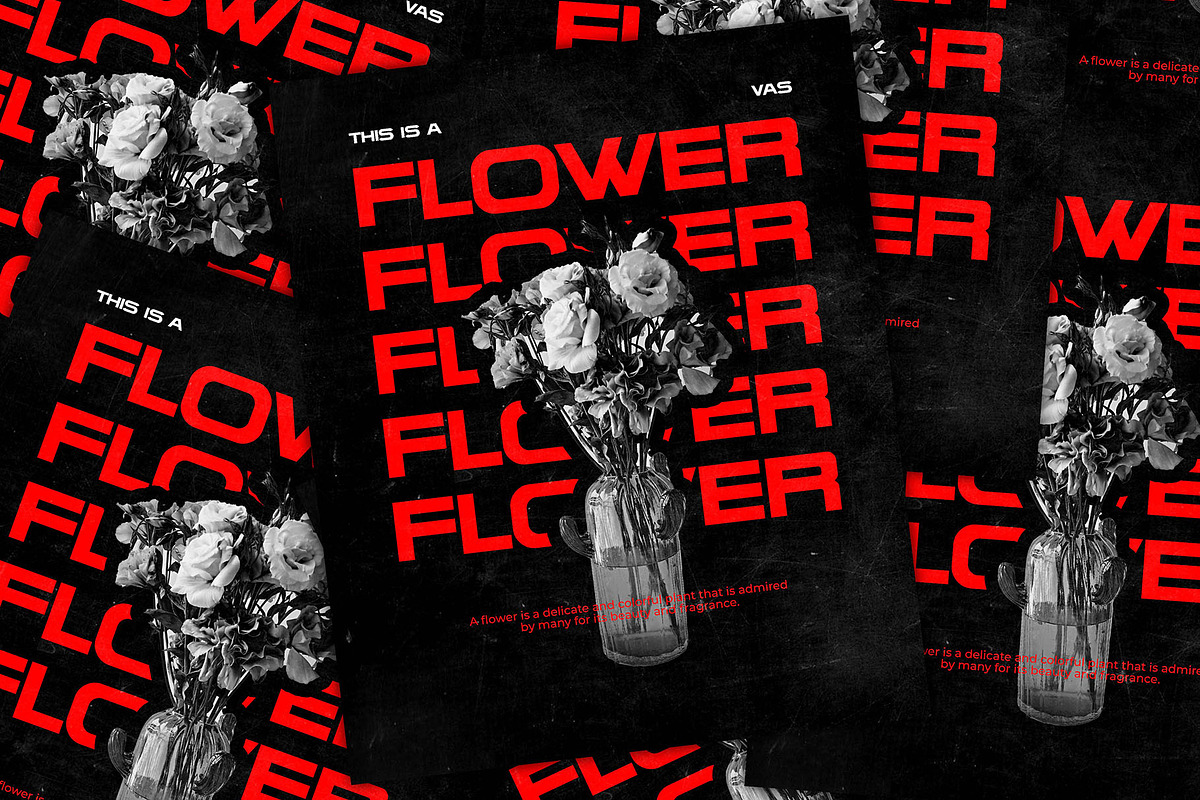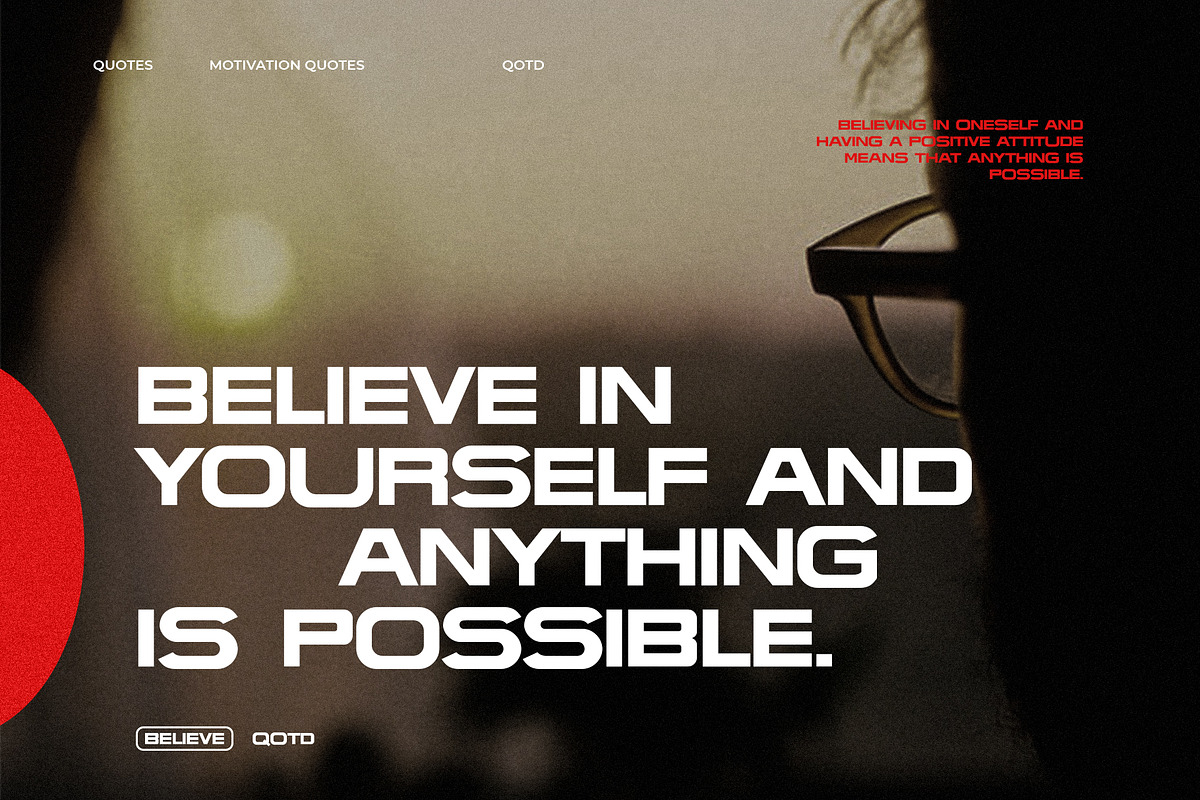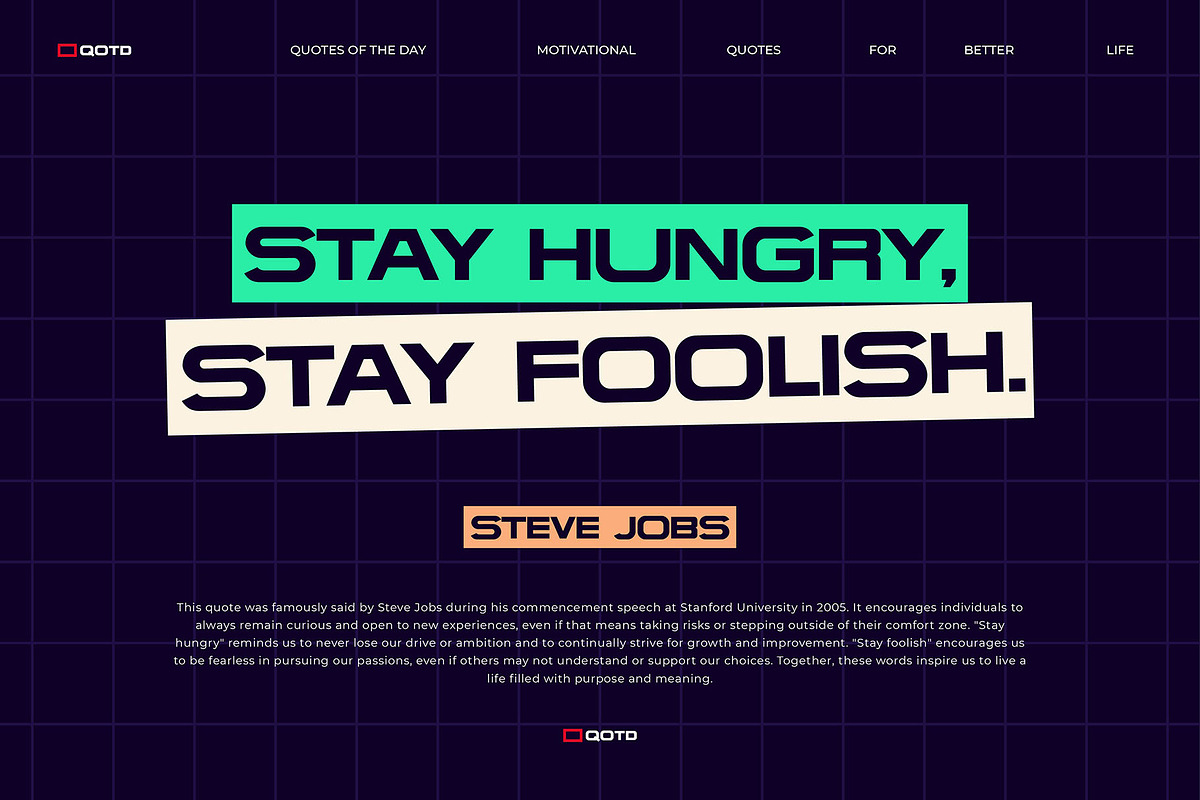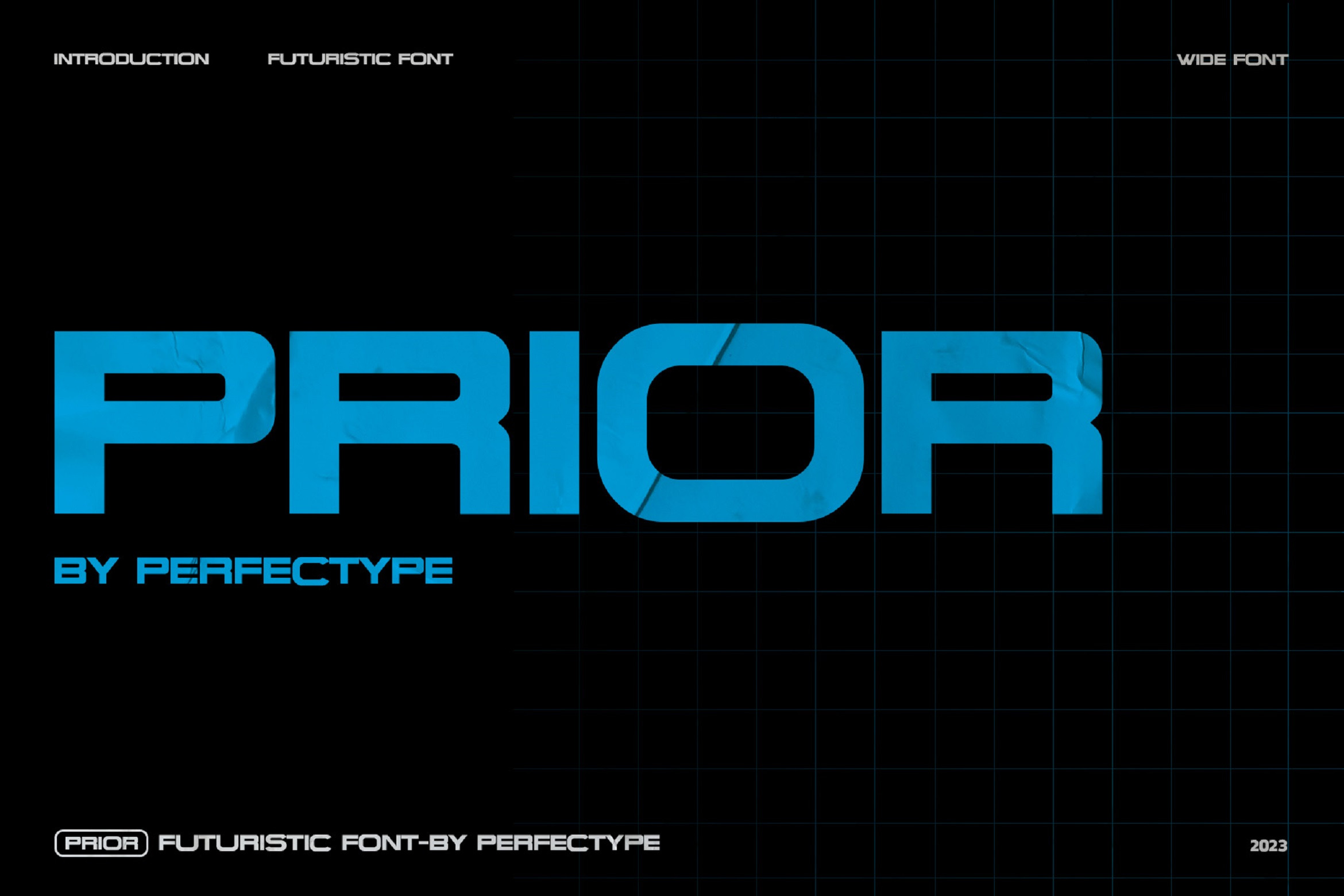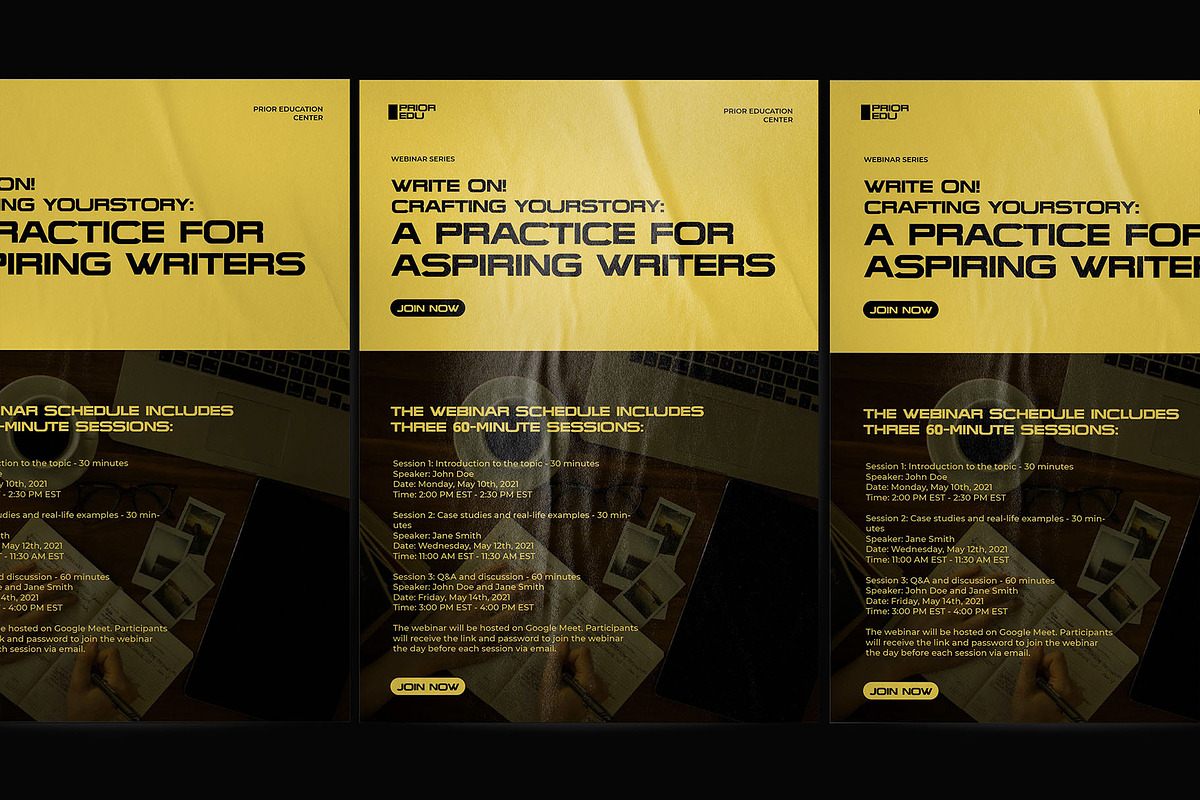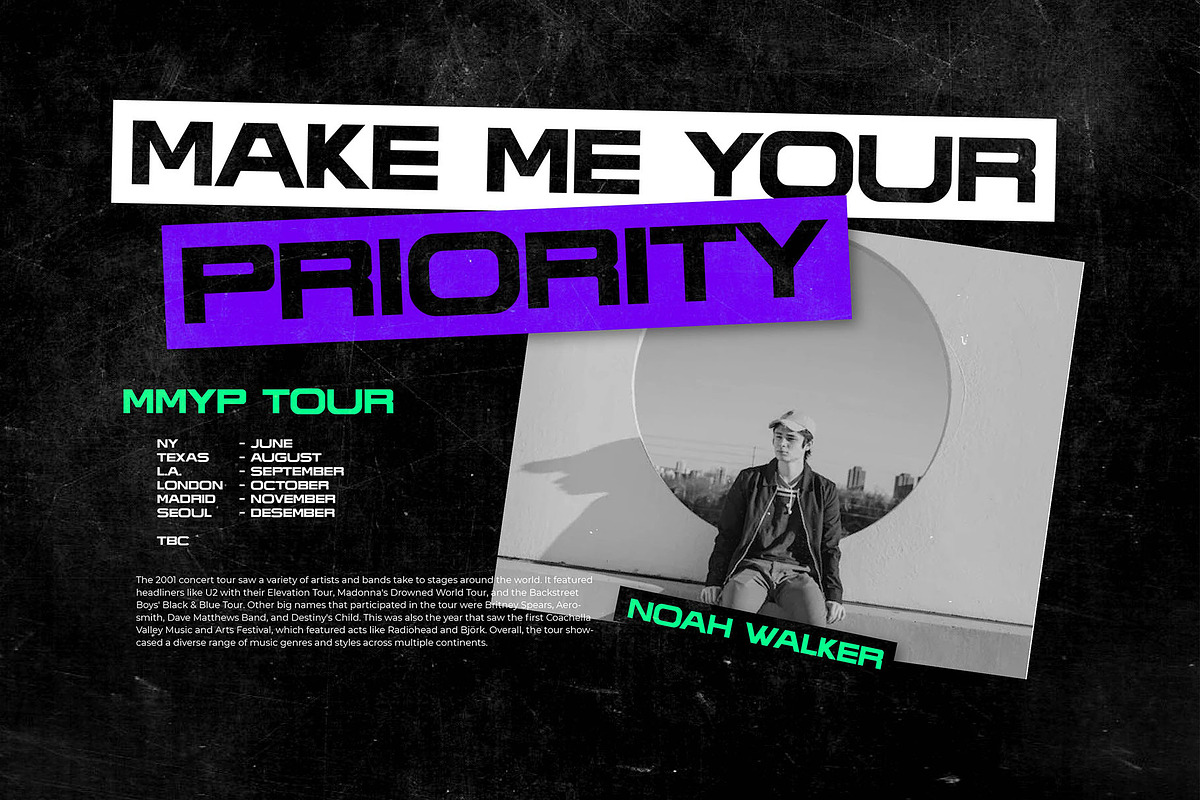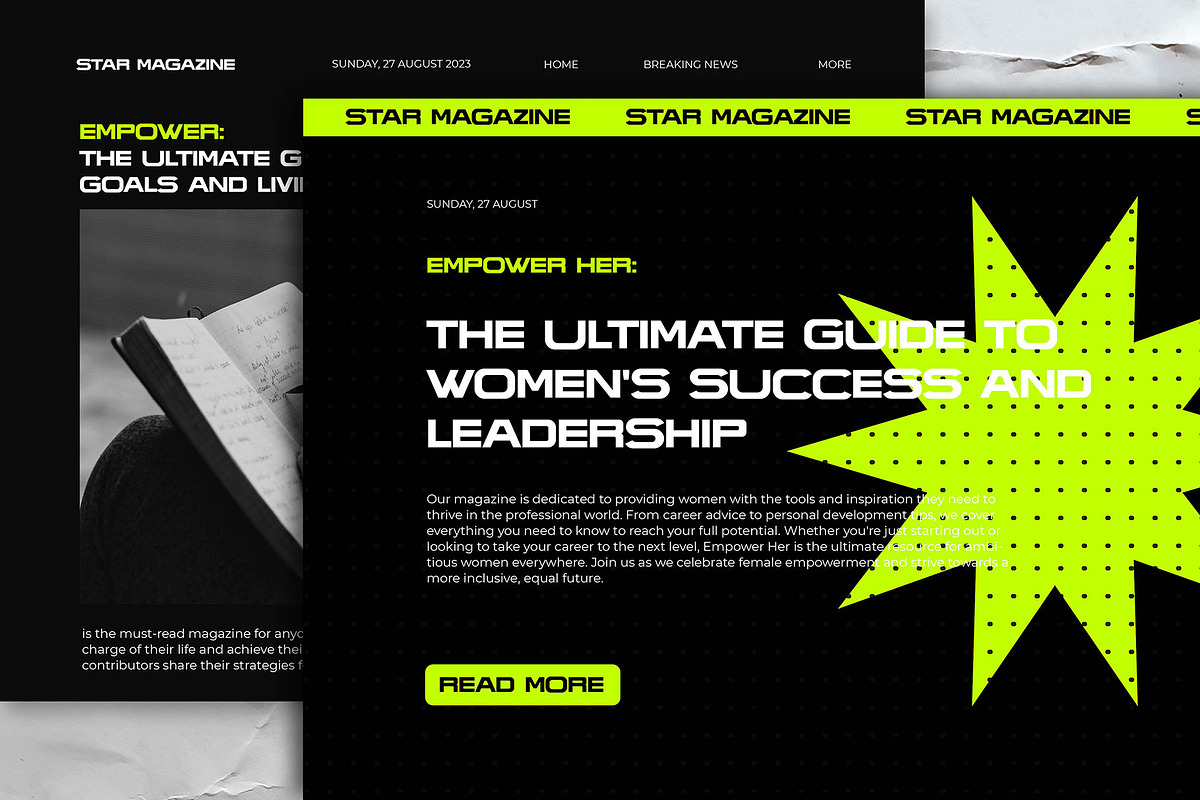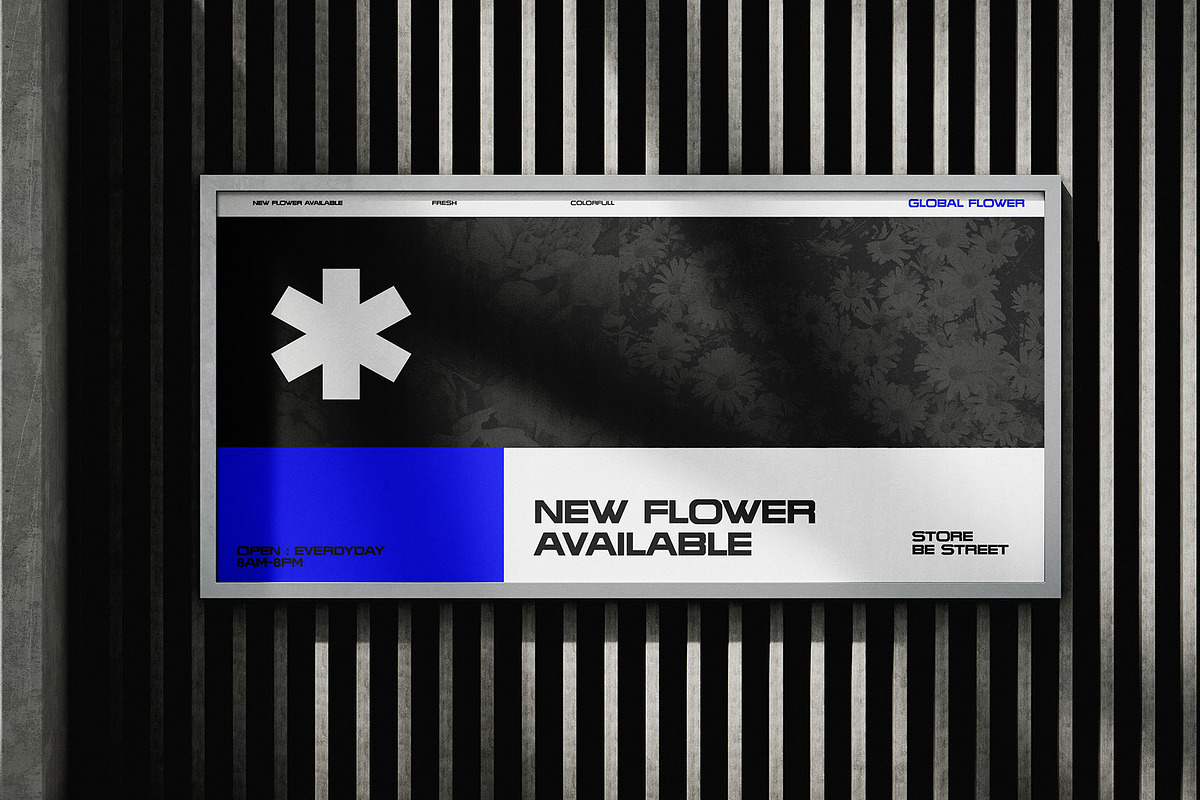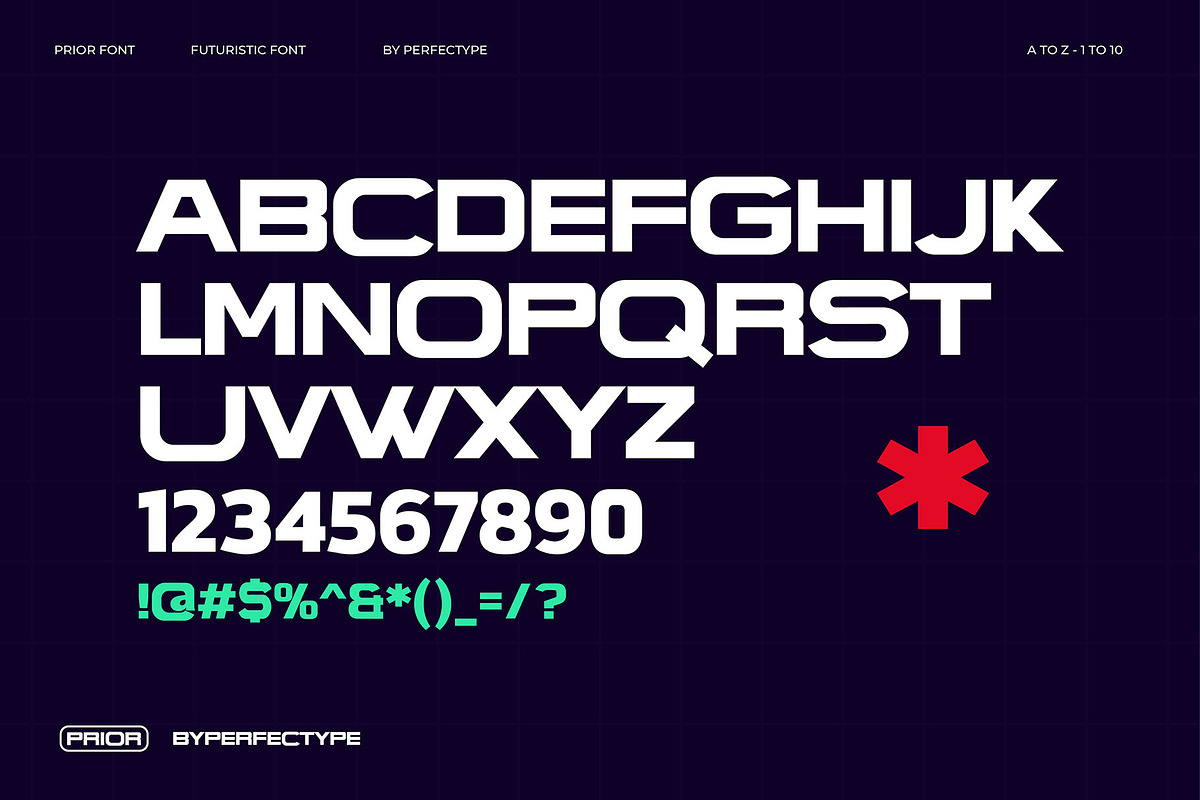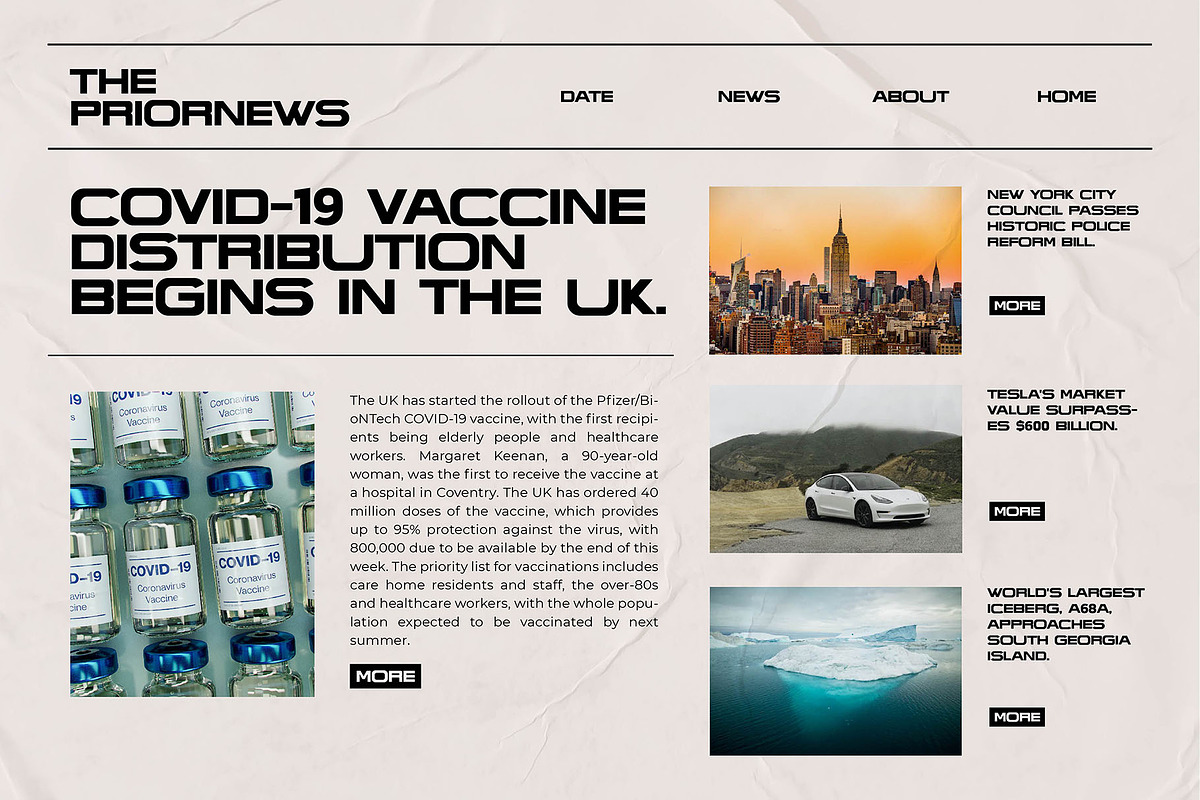
Prior Futuristic Sans Serif Font
Region Modern Sans Serif Font inspired by the famous minimalist logo perfect for the purposes of designing templates, brochures, videos, advertising branding, logos, invitation, layout design, elegant crafting, beauty design and other